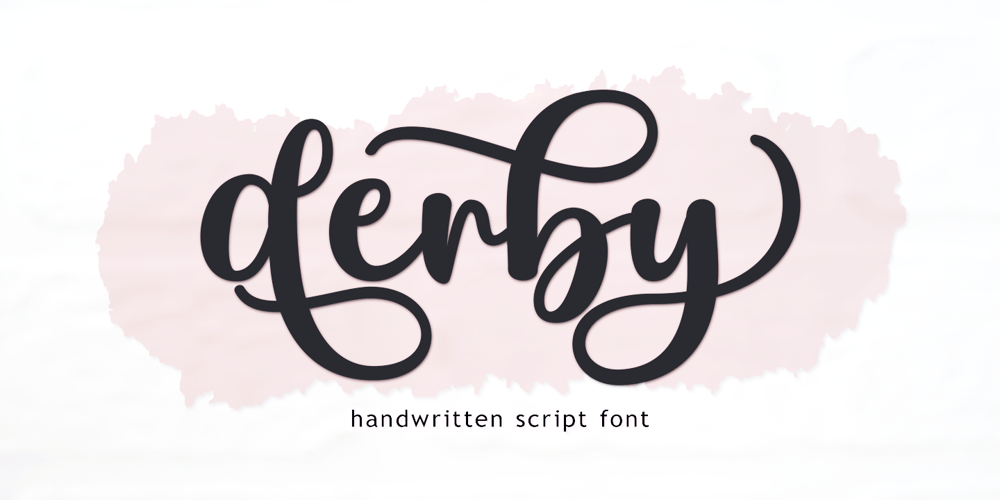
Derby Script Font Family was designed by Zaki Muhammad and published by madjack.font. Derby Script contains 1 styles and family package options. Derby Script is a modern, organic, dynamic and energetic brush font. Can be used for various purposes. such as titles, signatures, logos, correspondence, wedding invitations, letterheads, signage, labels, newsletters, posters, badges, etc.Derby Script (otf)To activate the OpenType Stylistic alternative, you need a program that supports OpenType features such as Adobe Illustrator CS, Adobe Indesign & CorelDraw X6-X7, Microsoft Word 2010 or a later version. How to access all alternative characters, using the Windows Character Map with Photoshop: https://www.youtube.com/watch?v=Go9vacoYmBwHow to access all alternative characters using Adobe Illustrator:https://www.youtube.com/watch?v=XzwjMkbB-wQDerby Script is coded with PUA Unicode, which allows full access to all additional characters without having to design any special software. Mac users can use Font Book, and Windows users can use Character Map to view and copy additional characters for pasting into your favorite text editor / application.Thank you so much for looking up and letting me know if you have any questions